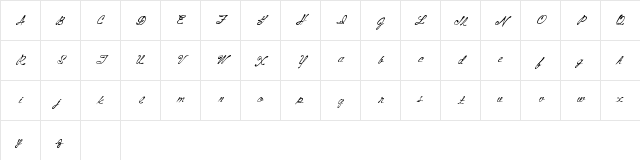
AboveStars Regular
Foundry: Xerographer Fonts
Designer: Max Infeld Xerographer Fonts
Design Context for AboveStars
AboveStars is a composed and adaptable typeface that performs quietly and consistently across a wide range of design contexts.